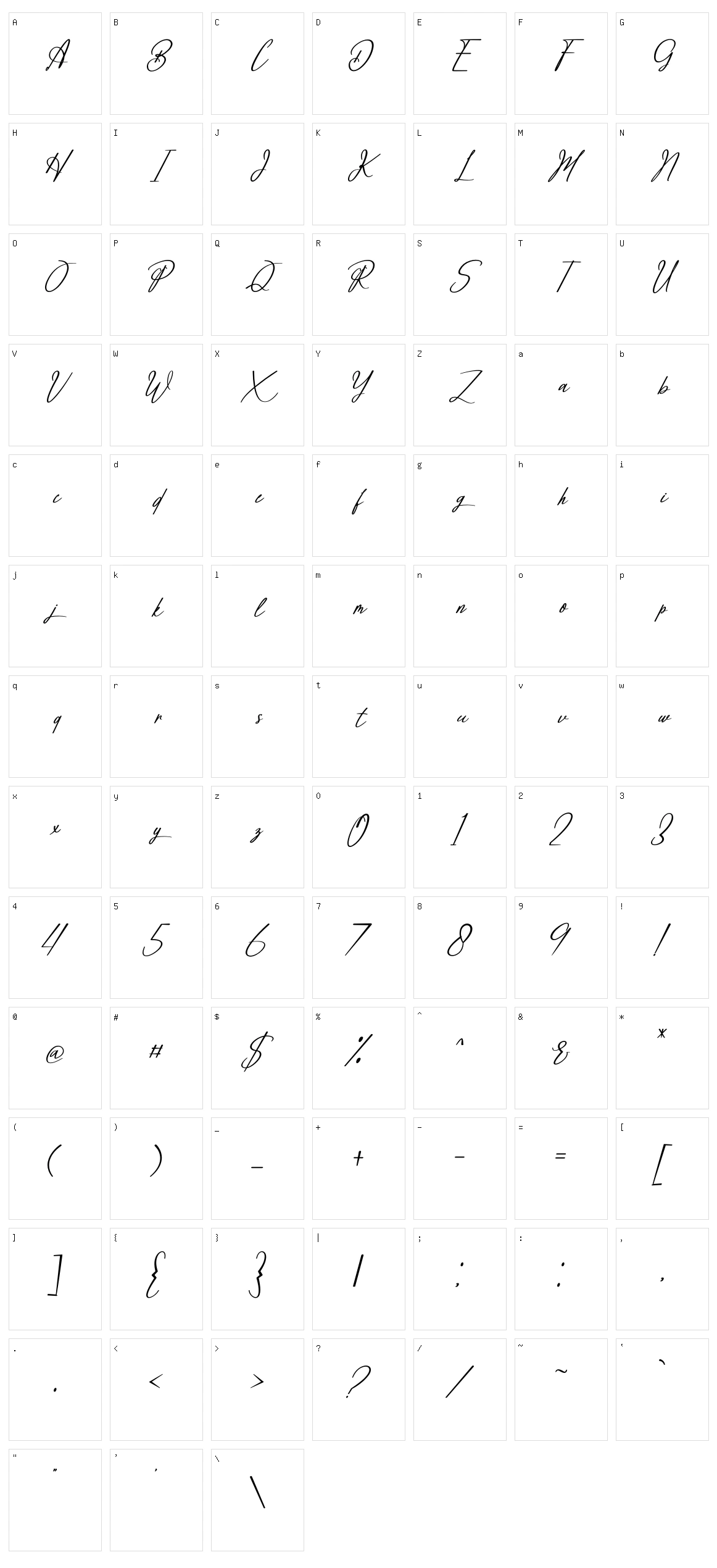
The free font Brilliant Signature is carefully designed by Supersemar Letter, showcasing a thoughtful balance of creativity and usability and falls under the Script font style. When you download the ZIP file, it contains only 26.99 KB of font files, making it lightweight and quick to download. Please review the license details below to understand permitted usage and distribution rights. If license information is not available, we recommend using this font for personal projects only or contacting the author directly for commercial usage permissions.